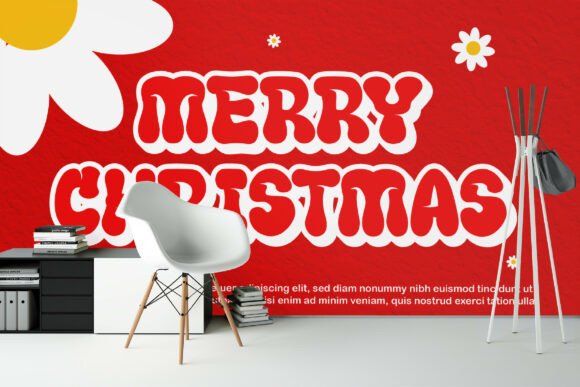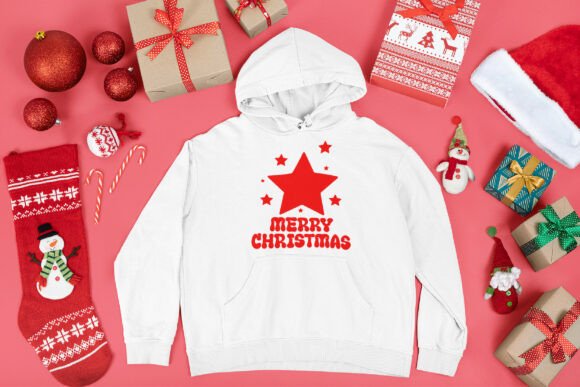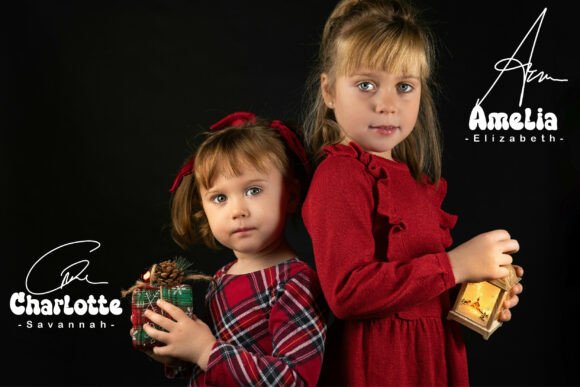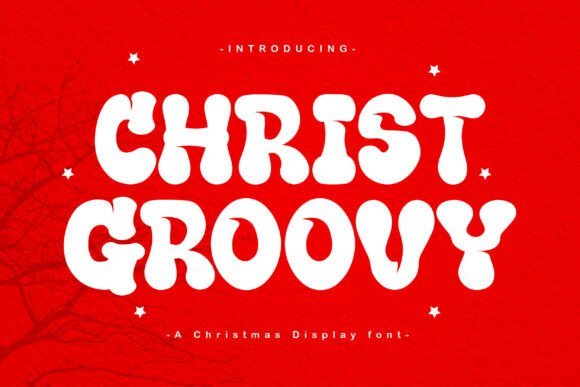
Introduction to Christ Groovy Font
Christ Groovy is a unique font inspired by the spirit and groovy style of Christmas parties.
Its essence captures the rhythmic energy and stylish appeal of Christmas celebrations Christ party invitations become very attractive, while thank you cards exude a playful charm when decorated with this font.